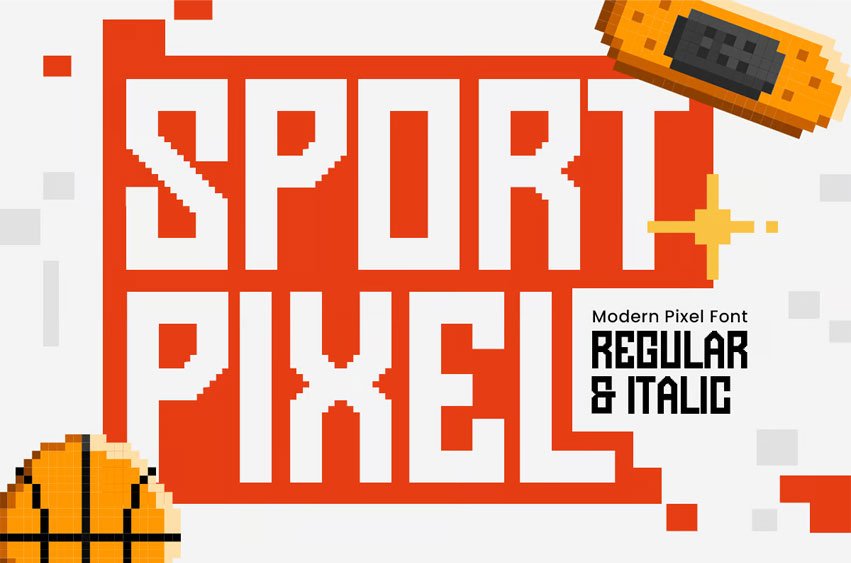
Sport Pixel Font is a modern pixel font designed for high-energy sports branding, esports visuals, and digital racing aesthetics. Inspired by the classic pixelated style of arcade games, this typeface combines retro vibes with a sleek, contemporary twist, making it perfect for sports jerseys, gaming interfaces, event posters, and tech-inspired branding.
With its sharp, blocky design and fast-paced aesthetic, Sport Pixel delivers a bold, competitive look for projects that demand strength, agility, and digital precision. Whether you’re crafting a futuristic game UI, an esports team logo, or an adrenaline-fueled campaign, this font ensures your designs stand out with power and style.
Sport Pixel – Modern Pixel Font Features:
- Strong, athletic pixelated design
- Ready with Regular & Italic Version
- Perfect for esports, gaming, and digital sports branding
- Punctuation, numbers, and symbols included
- Uppercase and lowercase letters
- OpenType features for extra flexibility
Bring the speed, energy, and competitive edge of Sport Pixel into your designs—a must-have font for modern sports and gaming aesthetics.